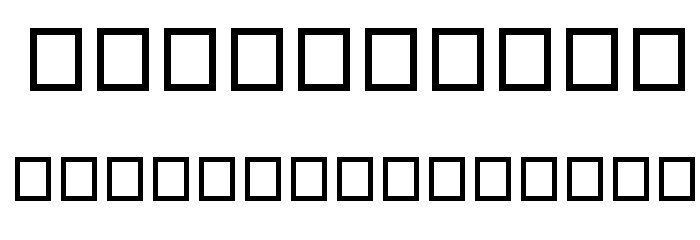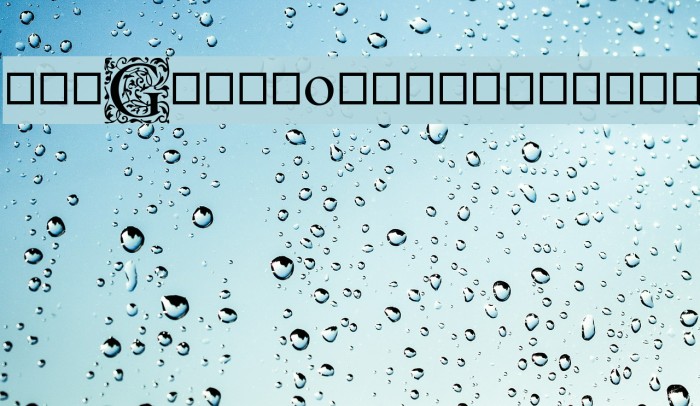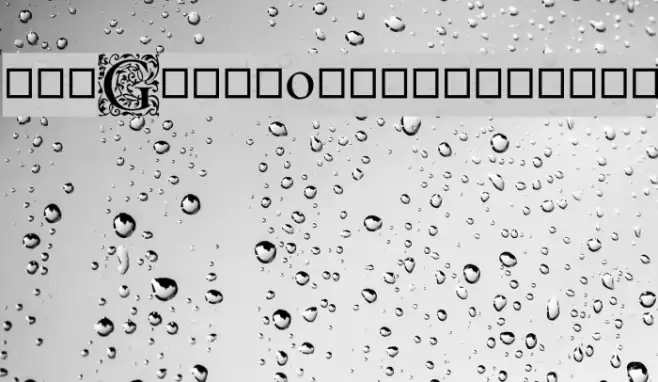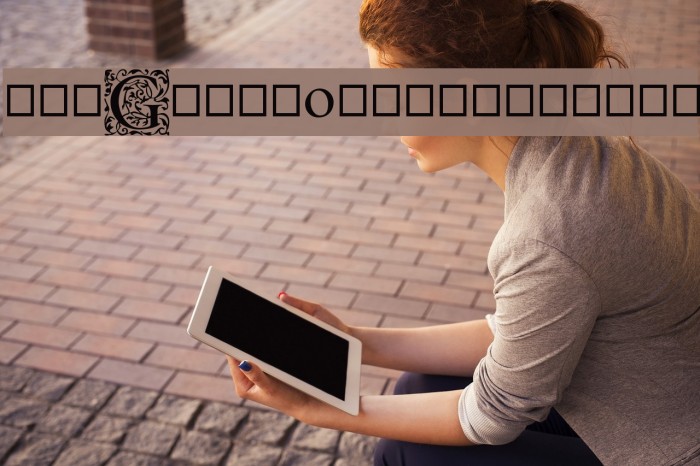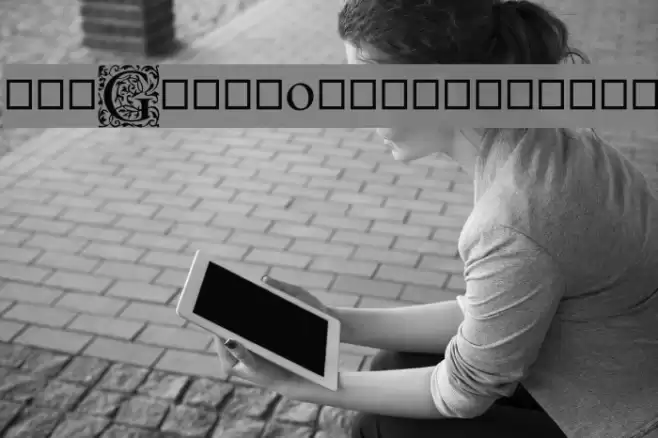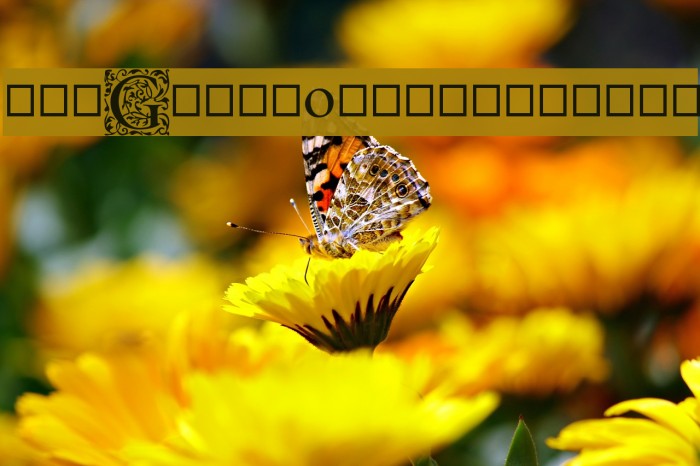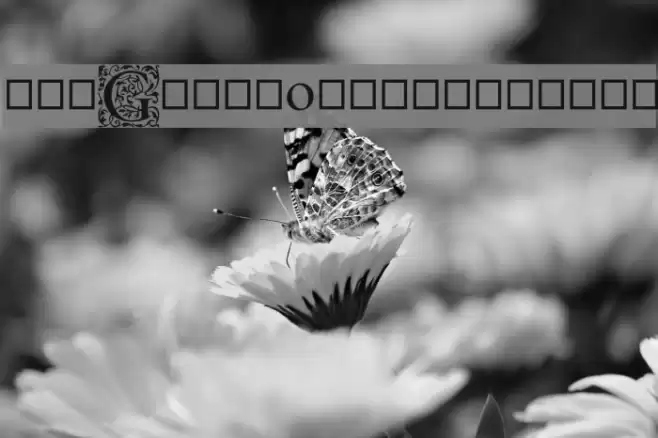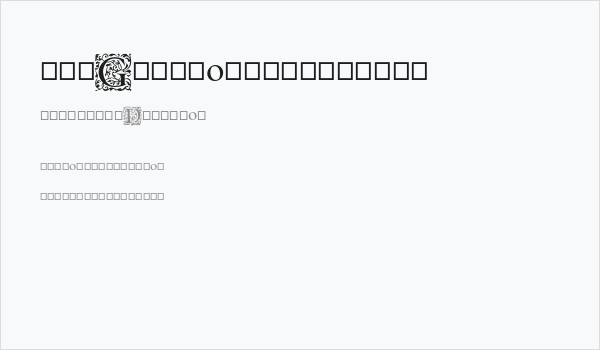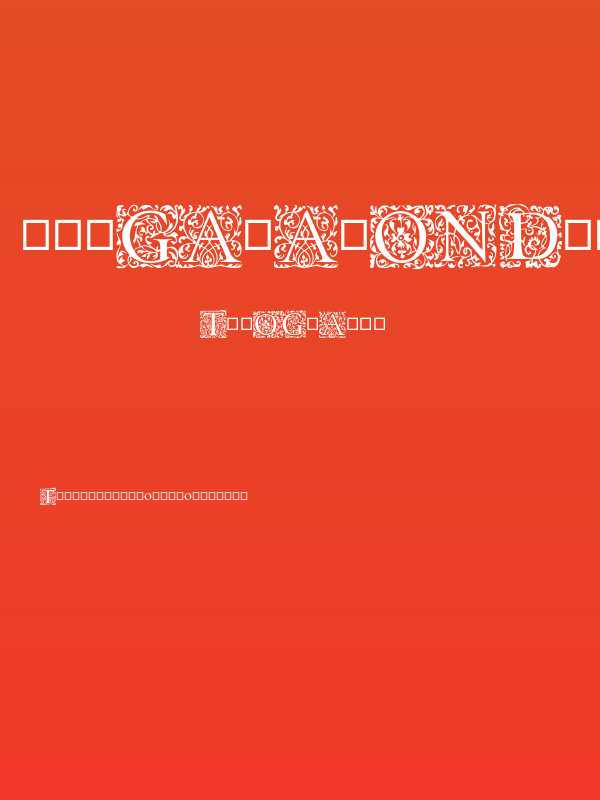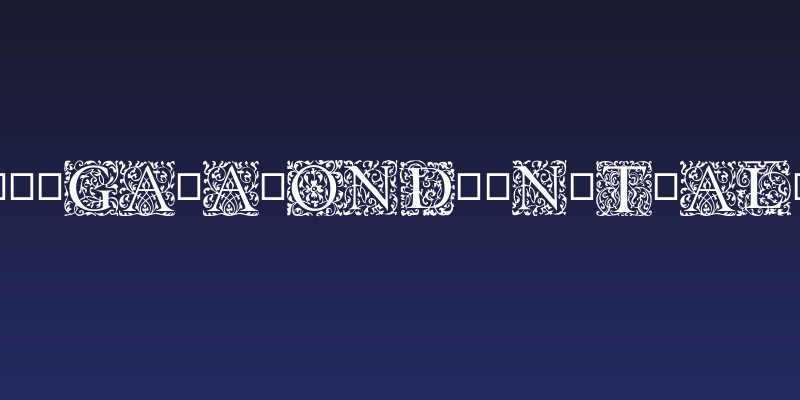
EB Garamond Initials Font
EB Garamond Initials Description
This font features ornate initials with intricate decorative patterns surrounding each letter. The embellishments are reminiscent of classical and renaissance art, providing a sense of elegance and sophistication. Each letter is encased in a square, with elaborate floral and vine motifs that create a striking visual impact. The design is highly detailed, making it suitable for projects that require a touch of luxury and historical charm. The font is primarily uppercase, focusing on the aesthetic appeal of the initials.
| Use Case | Logos, Headlines, Decorative elements |
| Proposed Projects | Ideal for wedding invitations, luxury branding, historical documents, and decorative book covers. |